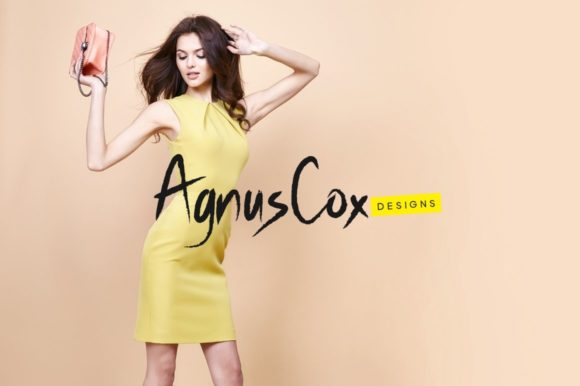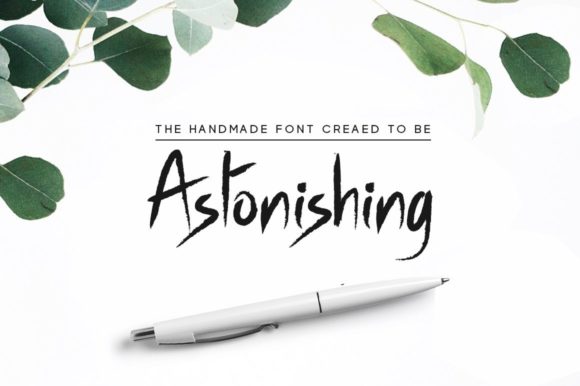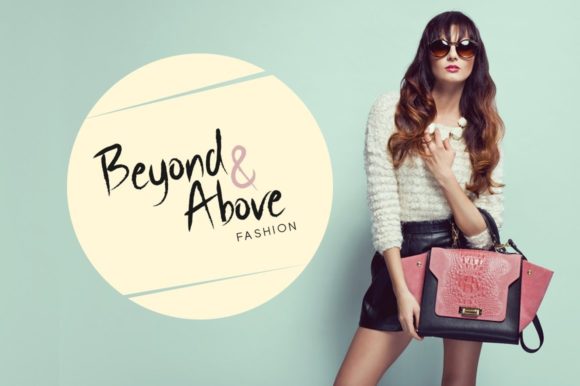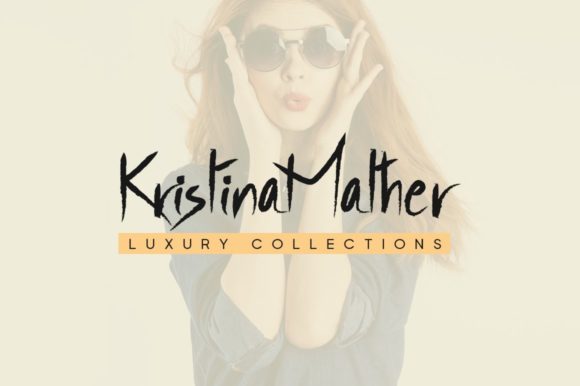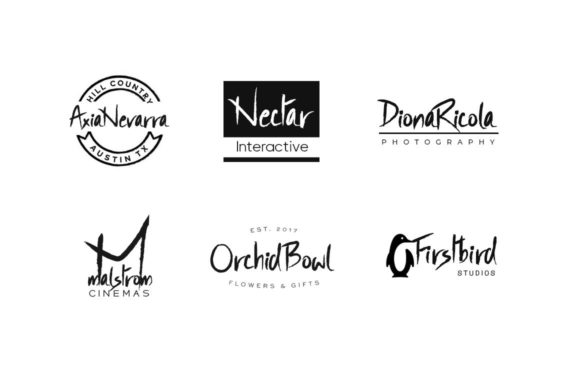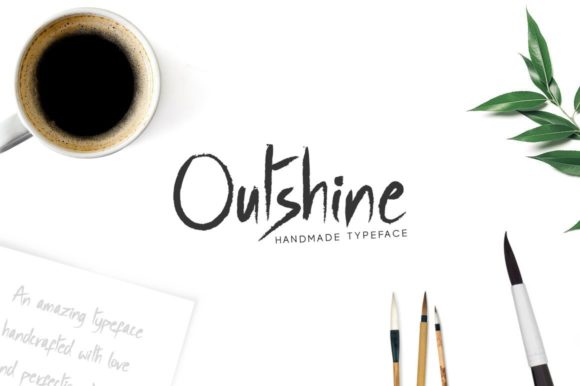
Introduction to Outshine Font
Have you ever stared at a blank canvas, waiting for that spark of inspiration to strike? For designers, those moments are precious – and the right font can be the difference between a good design and a great one. That’s where the Outshine Font comes in, a trendy and quirky handwritten font that’s sure to add a unique touch to your creative project.
Whether you’re working on a design resource for a client or creating a logo for your own business, the Outshine Font is a valuable addition to your toolkit. Its high-quality, free download makes it a must-have for designers of all levels. With its transparent background and cool brushed texture, this font is perfect for adding a touch of personality to your designs. In this article, we’ll take a closer look at what makes the Outshine Font so special.
Key Features of Outshine Font
- Features a transparent background, allowing for seamless integration with any design or background.
- Includes multiple weights and styles, including light, regular, and bold, to suit various design needs.
- Designed with high resolution (300 DPI) for optimal print quality and clarity.
- Perfect for use in digital design, including web design, graphic design, and UI/UX projects.
Honest Review: Outshine Font
I recently had the opportunity to work with the Outshine Font, and I must say it’s been a game-changer for my creative projects. As a designer, I’m always on the lookout for high-quality design resources that can elevate my work. The Outshine Font delivers, with its clean and modern aesthetic.
- ✨ High-quality typography that’s perfect for a variety of creative projects, from logos to brochures.
- ✨ Transparent background option that makes it easy to layer with other design elements.
- ⚠️ Limited font styles and weights, which may not be suitable for complex design projects.
- ⚠️ Not ideal for large-scale text, as it can become difficult to read.
Overall, I’m impressed with the Outshine Font. It’s a solid addition to any designer’s toolkit, and I’d definitely recommend it for smaller-scale creative projects. With its high-quality typography and transparent background option, it’s a great resource to have in your arsenal.
Outshine Font
The Outshine Font is a high-quality, free download design resource ideal for creative projects. It features a transparent background, making it perfect for overlaying on images or backgrounds.
The Outshine Font is perfect for:
- Designing social media graphics
- Creating promotional materials
- Developing branding materials